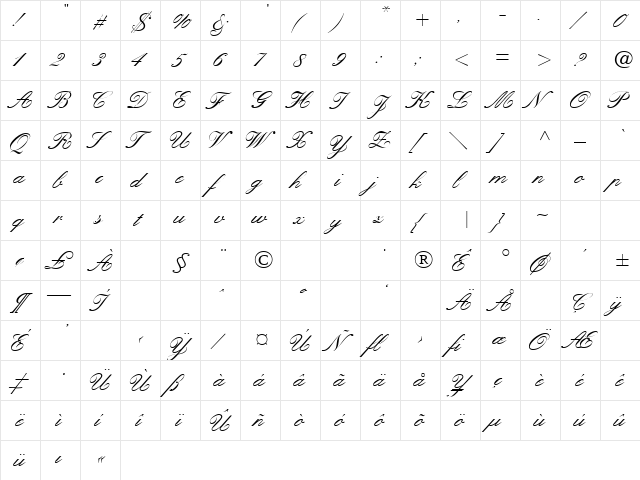
KuenstlerScriptMedium Regular Font Preview
KuenstlerScriptMedium Regular
Design Context for KuenstlerScriptMedium Typeface
KuenstlerScriptMedium brings a calligraphic fluidity to the page — its connecting strokes and expressive curves give it an unmistakably human quality.
Font Pairing: Combine KuenstlerScriptMedium with a simple geometric sans for maximum contrast — the tension between flowing curves and clean structure is a classic typographic pairing.
Pro Tip: Pair KuenstlerScriptMedium with a clean sans-serif for supporting text. The contrast between fluid script and geometric structure creates an elegant typographic hierarchy.